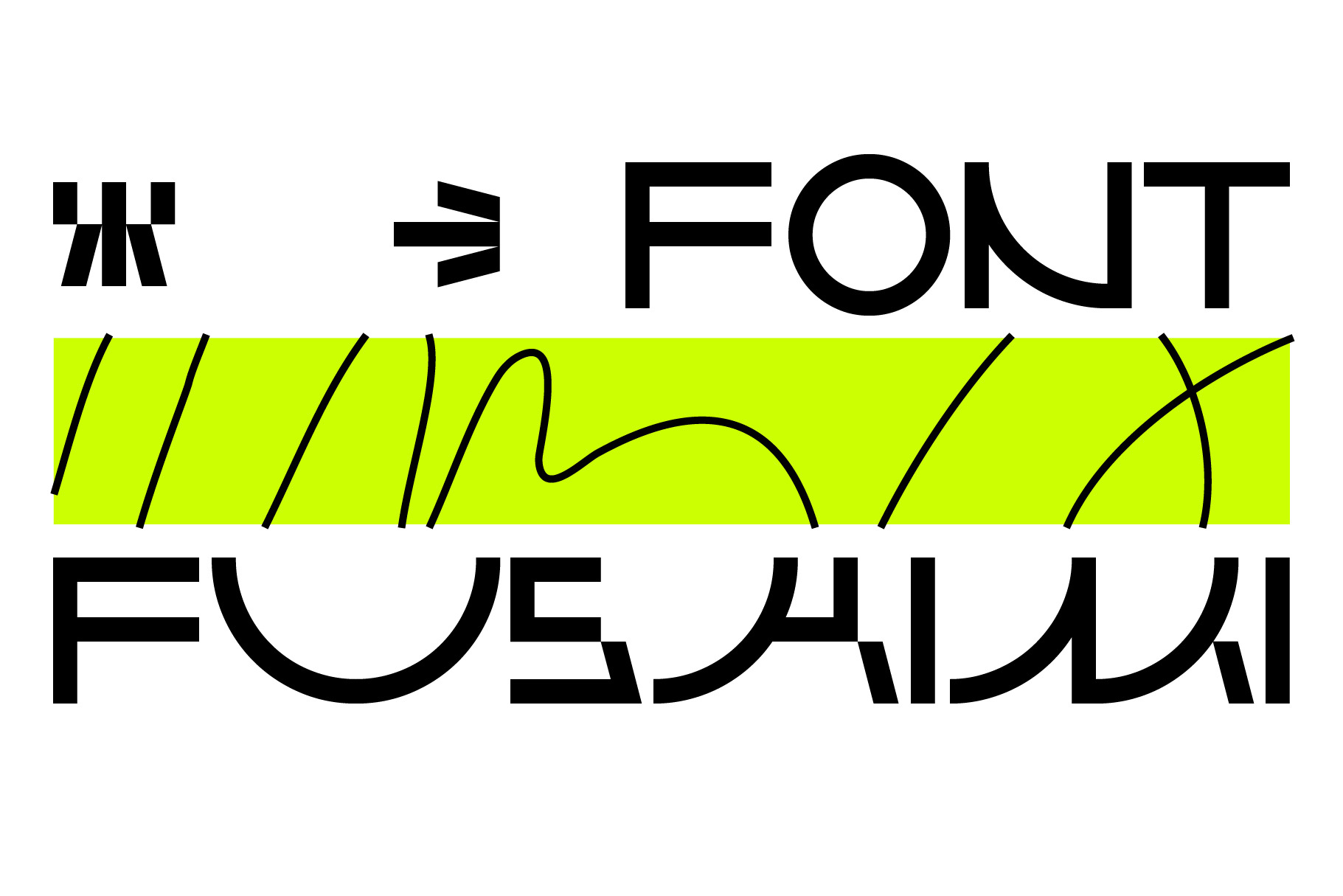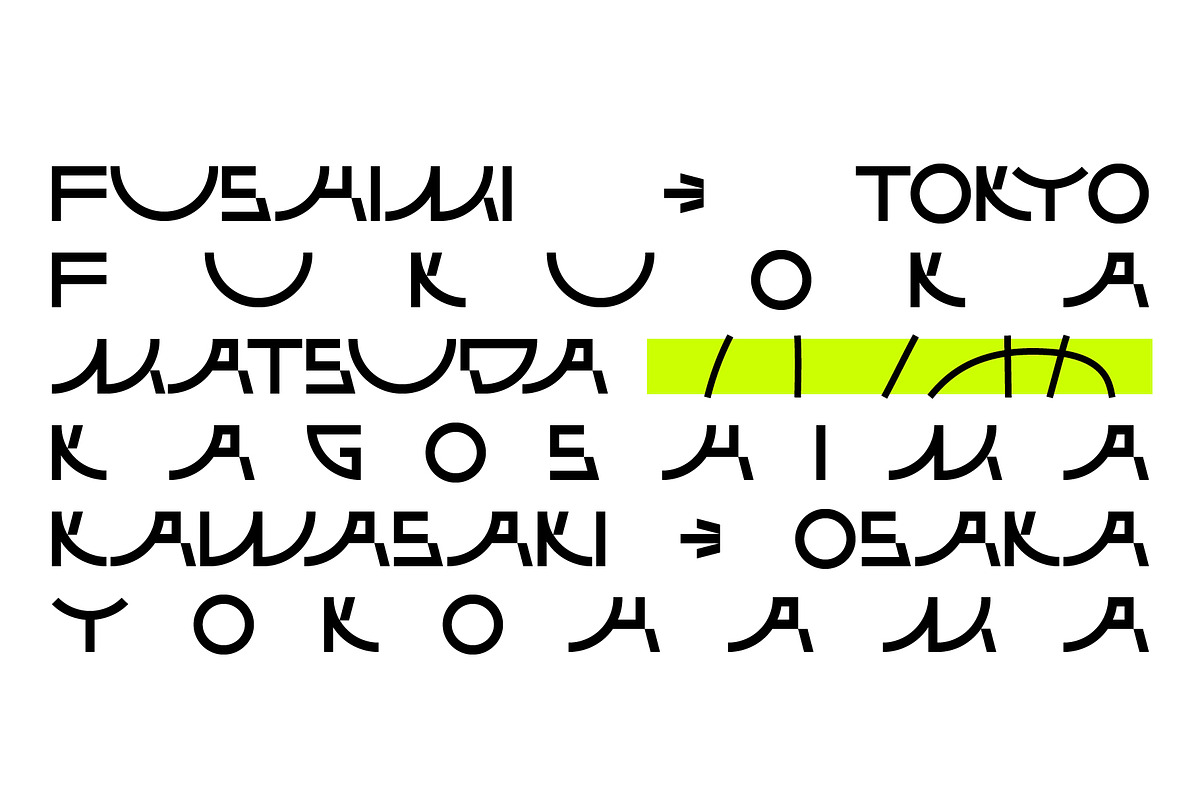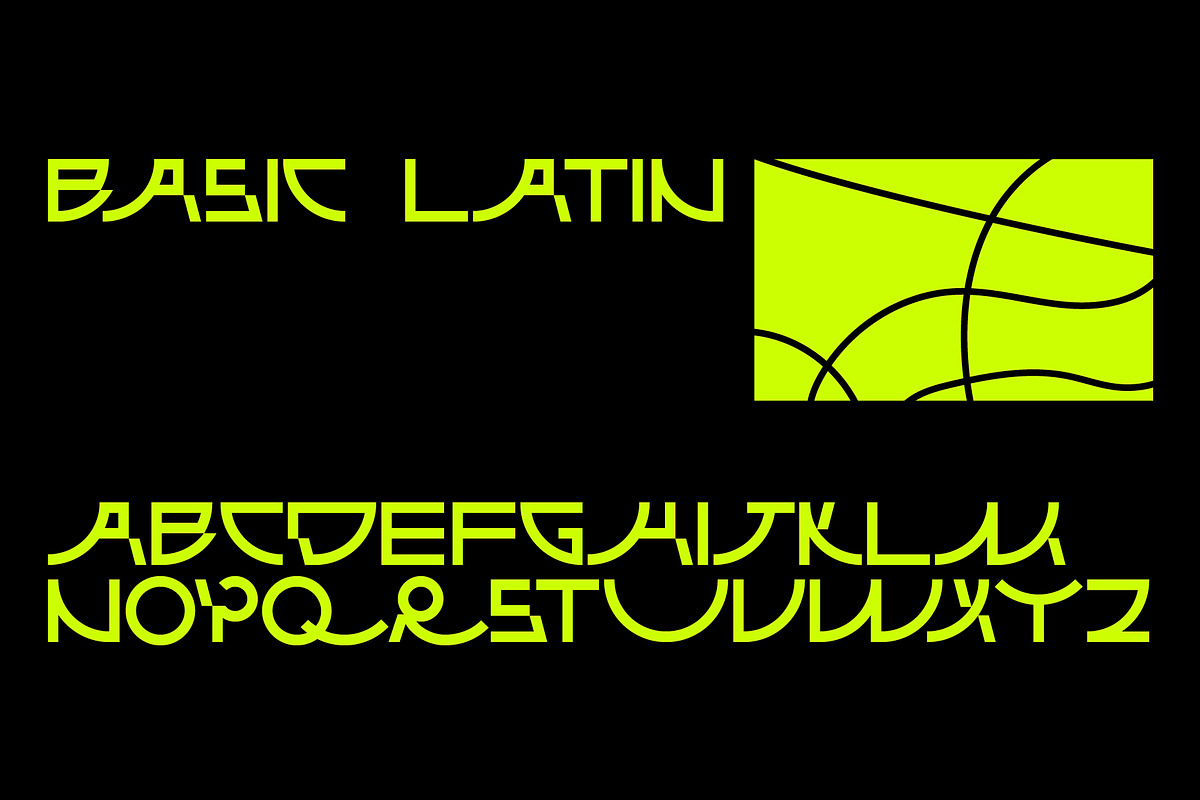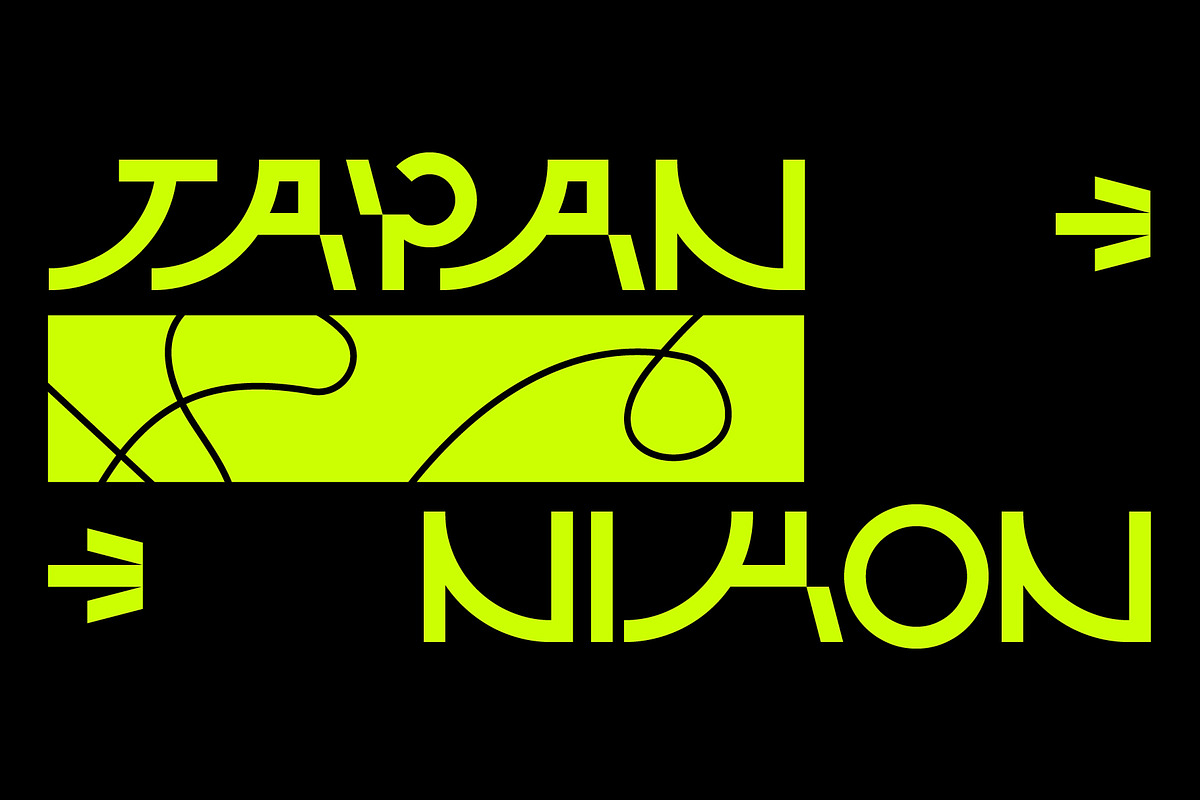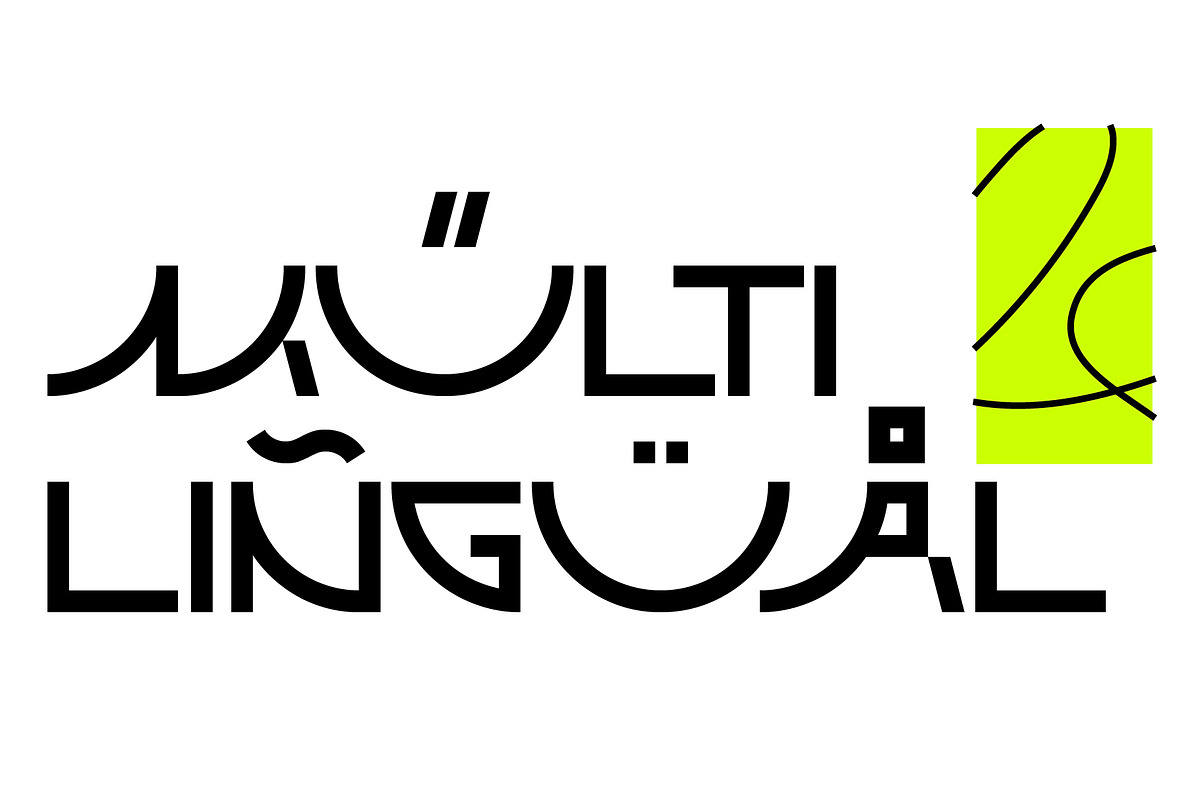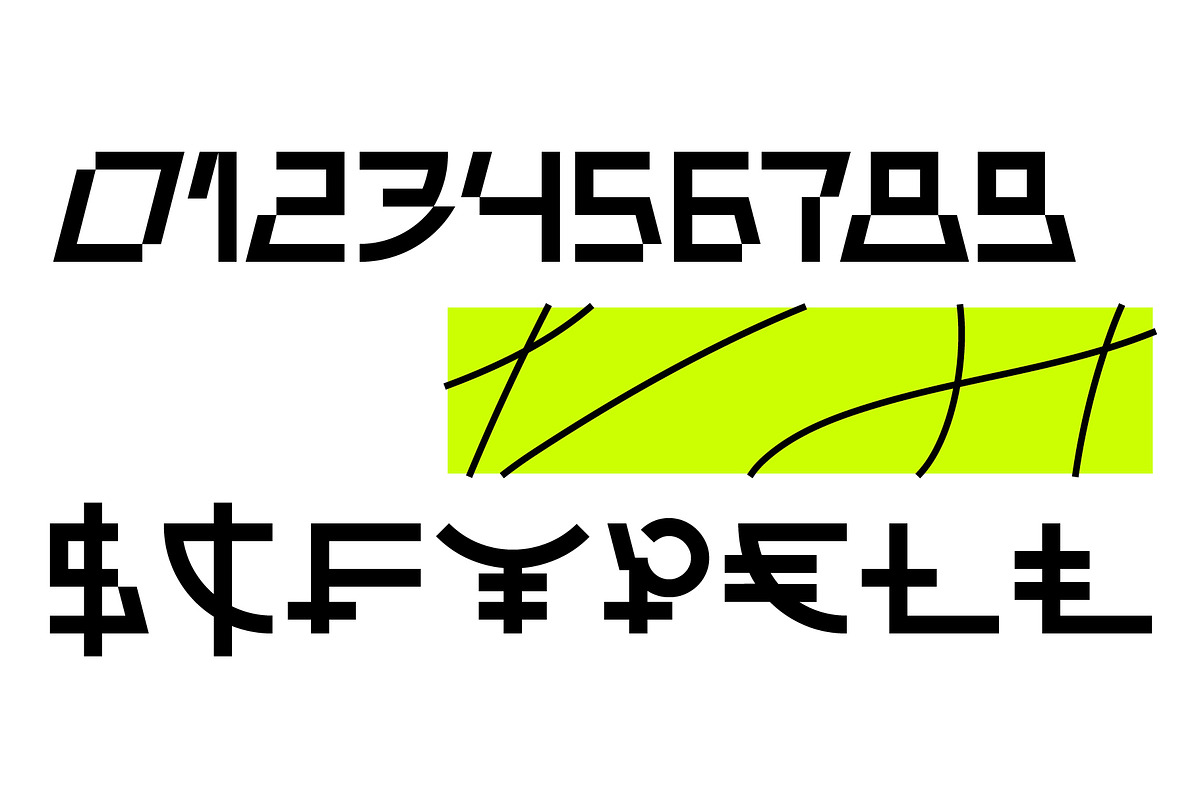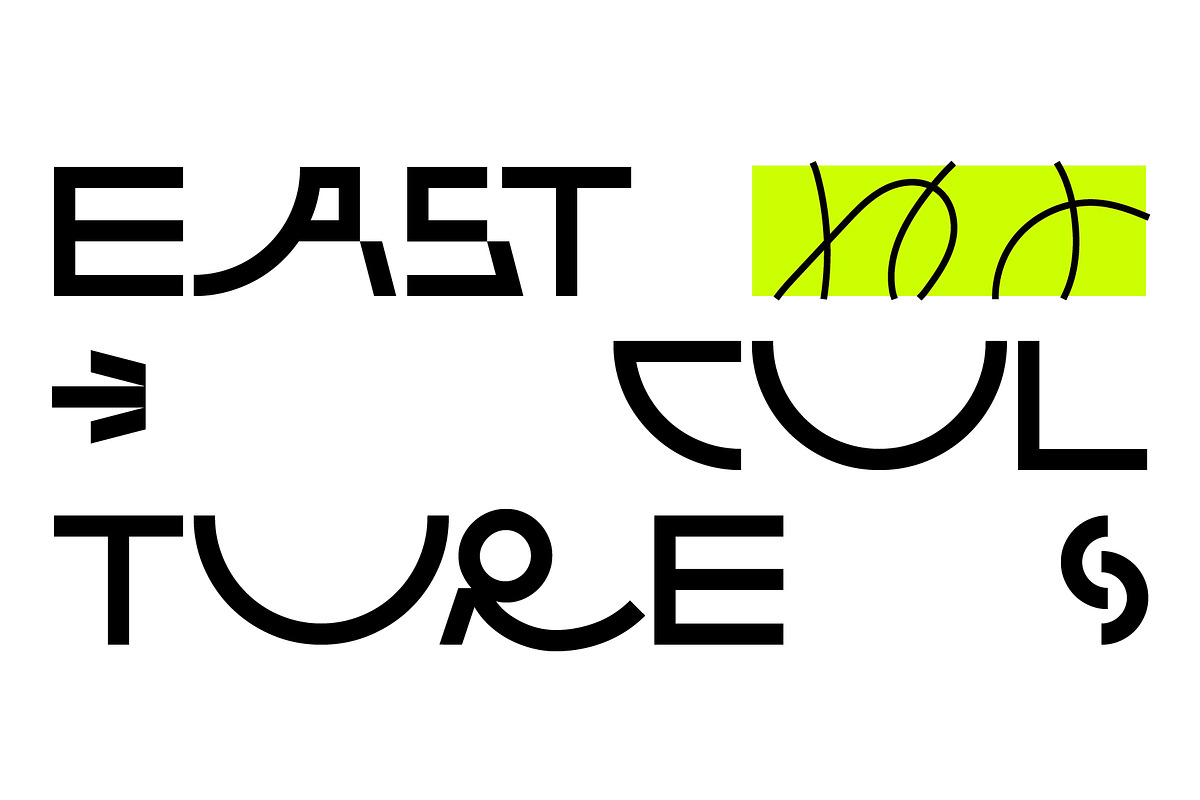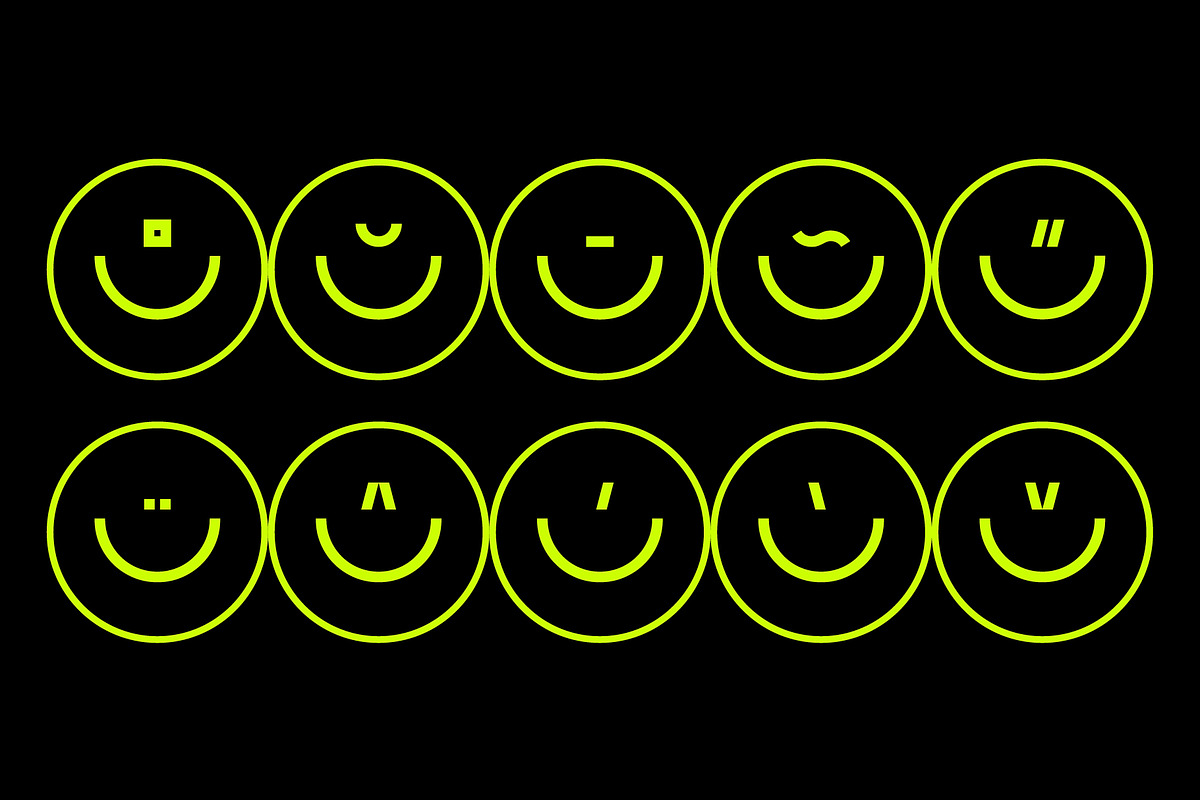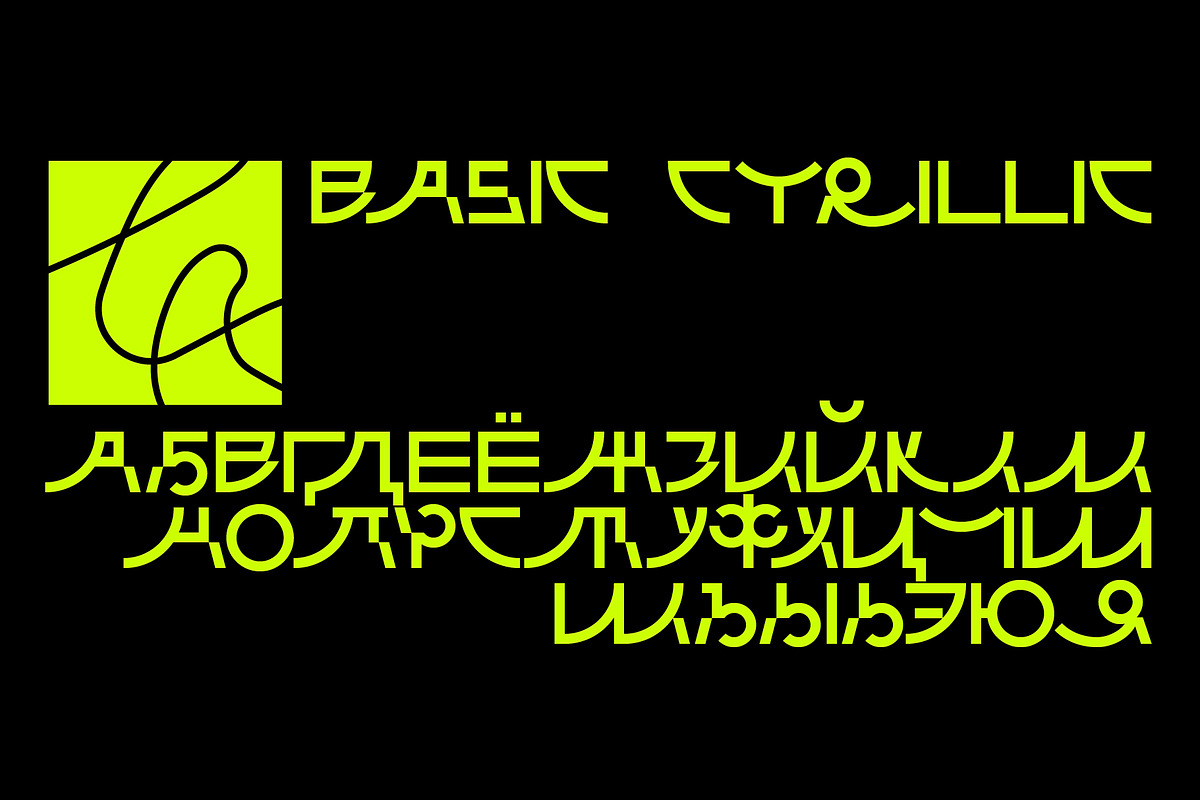
SK Fushimi — Experimental Tech Font
SK Fushimi is an accidental experimental font inspired by modern Japanese culture and aesthetics. Its futuristic geometric shapes, on the one hand, follow the spirit of the time of the land of the rising sun, and on the other hand, they make homage to technology. Like Japanese culture, the SK Fushimi font plastic fits perfectly into many areas of graphic design, supporting and complementing any graphic solutions. In addition, this font supports a multilingual set of more than fifty characters, including Cyrillic and Latin alphabets. Unusual in all respects, the font is perfect for the same unusual design or will make it so!